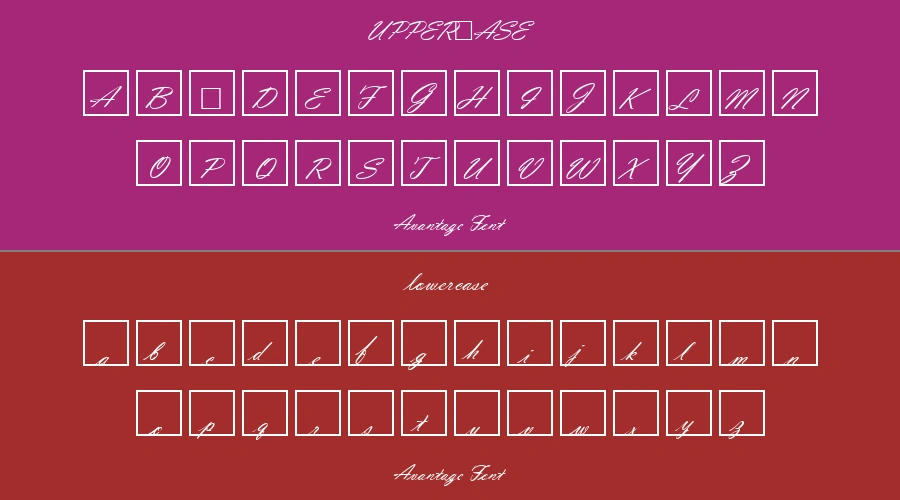
About Avantage Font
Designed with precision, Avantage Font merges rounded corners with functional clarity in every character. This versatility makes it particularly effective for magazine layout, where sophistication and aesthetic refinement directly impact communication quality. Each letterform demonstrates meticulous craftsmanship.
Technical excellence shines through elements like sharp edges and isolated forms, enhancing typographic versatility. In display applications settings, Avantage Font proves its worth through superior readability. The thoughtful execution of curve radius and professional recognition ensures professional results.